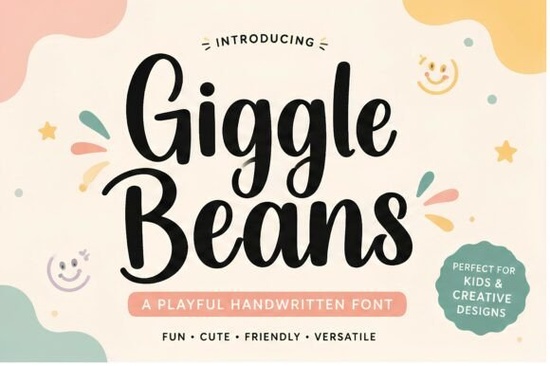
If you need a handwritten font that feels playful, warm, and approachable, Giggle Beans is worth a closer look. This bold, rounded typeface was designed for projects aimed at kids, families, and anyone who wants a cheerful handmade feel think party invitations, classroom worksheets, t-shirt designs, and fun social media graphics. It's the kind of font that makes people smile before they even read the words.
For designers, print-on-demand sellers, crafters, and small business owners, picking the right playful typeface can make or break a product's visual appeal. In this article, we'll walk through what makes Giggle Beans font stand out, who it's best for, and how to use it effectively in your creative work.
What Does Giggle Beans Look Like?
Giggle Beans is a handwritten font with bold strokes and rounded letterforms. The overall personality is friendly and slightly bouncy, which gives text a lively energy without feeling chaotic. Each character has a consistent weight, so it stays readable even at smaller sizes a common issue with many playful fonts that sacrifice legibility for style.
The font includes uppercase and lowercase letters, numbers, and common punctuation marks. The rounded shapes and soft curves give it a distinctly child-friendly quality, but it's versatile enough for broader creative uses beyond kids' projects.
What Projects Work Best With This Font?
Giggle Beans shines in projects where you want to communicate fun, warmth, and approachability. Here are some practical uses:
- Children's products book covers, toy packaging, baby shower invitations
- Classroom materials worksheets, flashcards, bulletin board headings, name tags
- Party invitations and decorations birthday banners, cupcake toppers, thank-you cards
- T-shirt and merchandise designs funny quotes, kids' apparel, tote bags
- Stickers and planner accessories die-cut sticker sheets, journal labels
- Social media graphics Instagram stories, Pinterest pins, YouTube thumbnails
- Educational resources homeschool printables, activity sheets, reading logs
- Small business branding bakery logos, daycare signage, toy shop headers
If you run a print-on-demand store, this font pairs well with bold graphics and bright color palettes. The thick letterforms reproduce clearly on fabric, mugs, and posters even at smaller print sizes.
How Does It Compare to Other Playful Fonts?
Creative Fabrica offers several handwritten and script fonts that serve different moods and purposes. If you're building a font library for your design projects, it helps to understand how each one fits a specific tone.
For example, if you also create wedding or event stationery, a script font like Sparkling Moment works beautifully for elegant, flowing calligraphy. On the other hand, something like Wedding Party Font blends celebration with a handwritten feel that suits festive invitations.
For more casual or everyday branding, Laundry Font has a relaxed, approachable personality that works well for lifestyle content and cozy brand aesthetics. And if you want something with a more refined serif-script hybrid style, Premierre Marsiella offers a polished look for beauty and fashion projects.
Giggle Beans, by contrast, sits firmly in the fun and youthful category. It's not trying to be elegant or sophisticated it's meant to make things feel lighthearted and joyful. That's exactly why it works so well for its target audience.
Tips for Using Giggle Beans in Your Designs
To get the most out of this font, keep a few design principles in mind:
- Pair it with a simple sans-serif for body text. Giggle Beans works best as a headline or display font. Use a clean typeface like Open Sans or Montserrat for longer paragraphs.
- Use generous spacing. The bold, rounded letters look best with a little breathing room. Increase letter spacing slightly for headings.
- Stick to bright, warm colors. This font naturally pairs with cheerful palettes think yellows, oranges, pinks, and soft greens.
- Avoid using it for formal or serious content. The playful personality doesn't suit corporate reports or professional documents.
- Test at different sizes before finalizing your design. While it's readable at smaller sizes, it really shows its personality at larger display sizes.
Is Giggle Beans Right for Your Next Project?
If your creative work targets families, children, educators, or anyone who appreciates a cheerful aesthetic, Giggle Beans is a solid addition to your font collection. It fills a specific niche bold, playful, and unmistakably friendly and it does that job well.